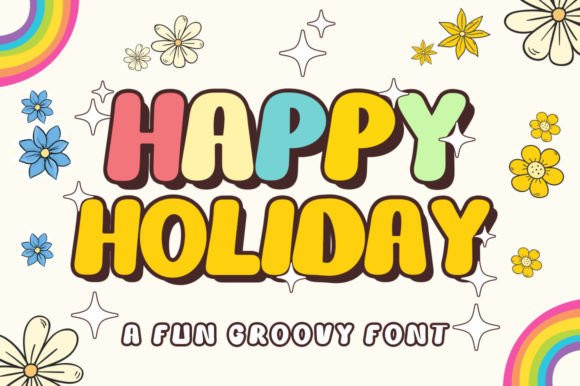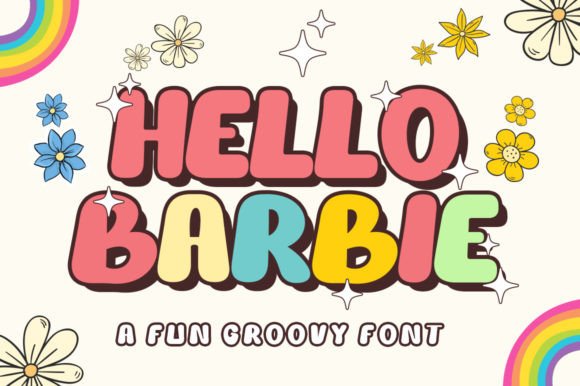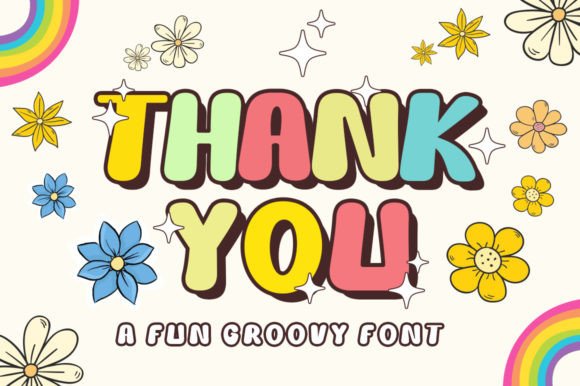
Introducing Barbei Retro Font: Elevate Your Designs with a Touch of Retro Elegance
In the world of typography, fonts play a crucial role in conveying the tone and aesthetic of a design. For designers and crafters looking to add a dash of retro charm to their projects, Barbei Retro Font is an excellent choice. This versatile, stylish, and playful retro display font is perfect for a wide spectrum of applications, including greeting cards, headlines, and many more. With Barbei Retro, you can give your creative projects a romantic and exquisite feel that’s sure to captivate your audience.
What Makes Barbei Retro Font Stand Out?
Barbei Retro Font boasts a unique blend of vintage flair and modern appeal. Its distinctive characters are carefully crafted to evoke a sense of nostalgia, making it an ideal choice for designers who want to create a retro-inspired look. The font’s playful and stylish nature ensures that it can be used in a variety of contexts, from elegant wedding invitations to bold advertising headlines.
Key Features of Barbei Retro Font
- Versatility: Barbei Retro Font is designed to be versatile, making it suitable for a wide range of applications, including digital and print designs.
- Retro Aesthetic: The font’s retro charm is perfect for designers looking to create a vintage-inspired look that’s both elegant and playful.
- High-Quality Design: Each character is carefully crafted to ensure a high level of legibility and aesthetic appeal.
- Elegant and Playful: Barbei Retro Font strikes the perfect balance between elegance and playfulness, making it ideal for a variety of design projects.
How to Use Barbei Retro Font in Your Designs
Barbei Retro Font can be used in a variety of design projects, including:
- Greeting Cards: Add a touch of retro elegance to your greeting cards, making them perfect for special occasions such as weddings, birthdays, and anniversaries.
- Headlines: Use Barbei Retro Font to create bold and eye-catching headlines for your advertising campaigns, blog posts, or social media updates.
- Logos and Branding: Incorporate Barbei Retro Font into your logo design or branding materials to give your business a unique and memorable identity.
- Packaging Design: Add a retro touch to your product packaging with Barbei Retro Font, making your products stand out on store shelves.
Tips for Getting the Most Out of Barbei Retro Font
To maximize the impact of Barbei Retro Font in your designs, consider the following tips:
- Experiment with Colors: Pair Barbei Retro Font with bold and bright colors to create a vibrant and eye-catching design.
- Play with Texture: Add texture to your design by combining Barbei Retro Font with patterns, illustrations, or graphics.
- Mix and Match: Don’t be afraid to mix and match Barbei Retro Font with other fonts to create a unique and visually appealing design.
| Font Name | Barbei Retro Font |
| Author | IM Studio |
Barbei Retro Font is a versatile and stylish font that’s perfect for designers and crafters looking to add a touch of retro elegance to their projects. With its unique blend of vintage flair and modern appeal, this font is sure to elevate your designs and give them a romantic and exquisite feel. Whether you’re creating greeting cards, headlines, or logos, Barbei Retro Font is an excellent choice for any design project.